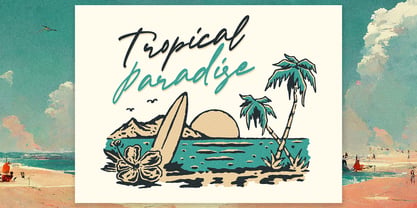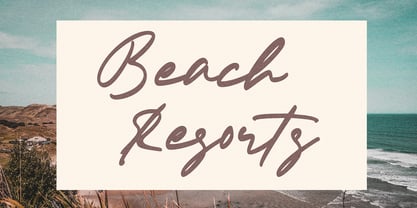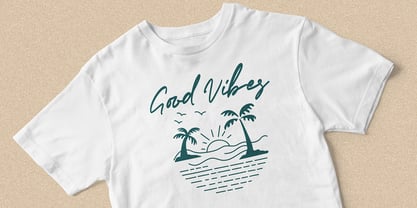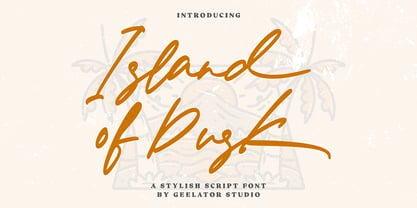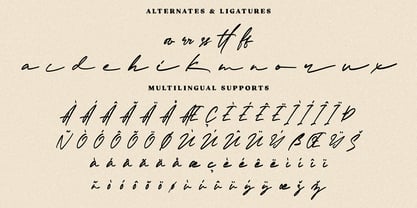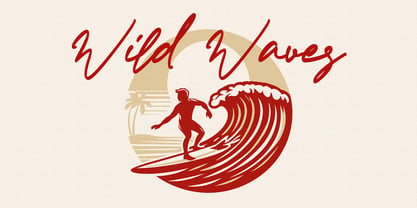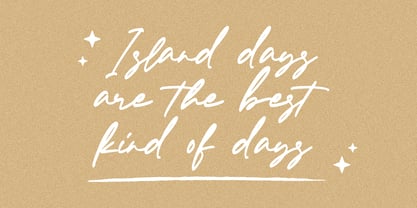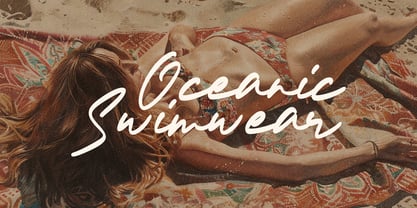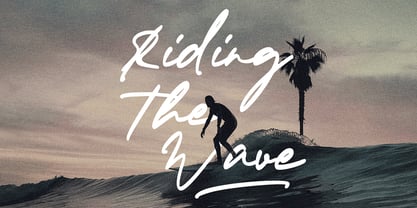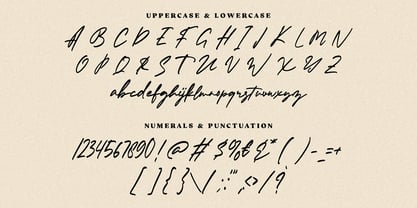
Island of Dusk
by Geelator Studio
The Island of Dusk Font Family was designed by Gilang Tito Dharmawan and published by Geelator Studio. Island of Dusk contains 1 styles. More about this family
Island of Dusk, a stylish script font by Geelator Studio, captures the serene beauty of a tranquil sunset, blending casual charm with refined calligraphic influences. Its flowing strokes evoke warmth and relaxed elegance, making it perfect for a wide range of projects from surf and beach themes to minimalist brands, logos, business cards, packaging, social media, and more. Island of Dusk offers a personal touch ideal for invitations, quotes, and artwork, adding sophistication and transforming ordinary designs into extraordinary ones.
Designers: Gilang Tito Dharmawan
Foundry: Geelator Studio